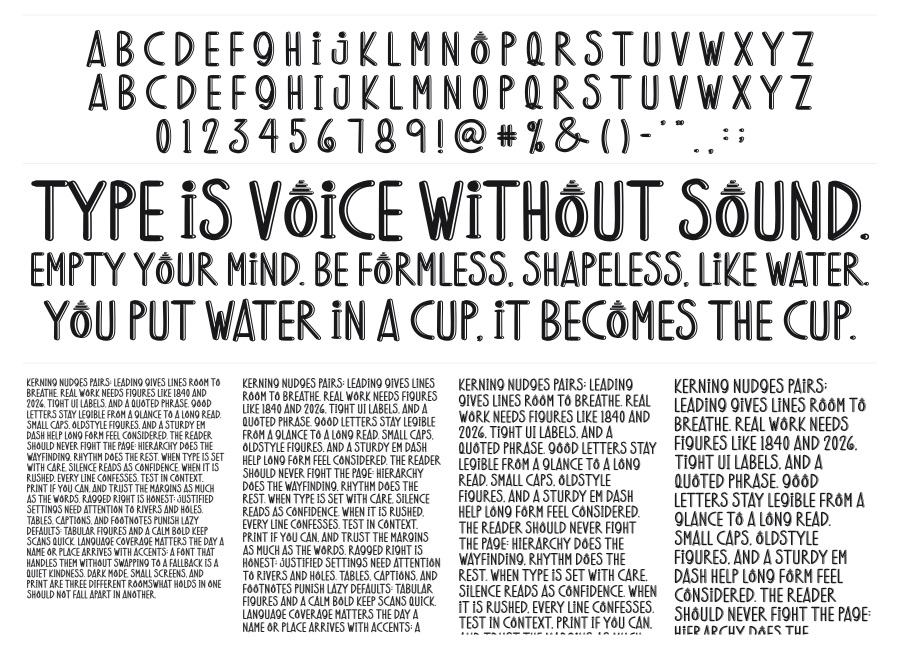
Tree Loves
by Milea Sajojo
Tree Loves is a condensed display sans with a charming inline double-stroke treatment that runs through each character. Small embedded decorative details, like stacked discs and teardrop forms nestled inside certain letters, give it a distinctly organic, nature-themed personality. It works best at large sizes where those tiny illustrative flourishes can actually be seen.